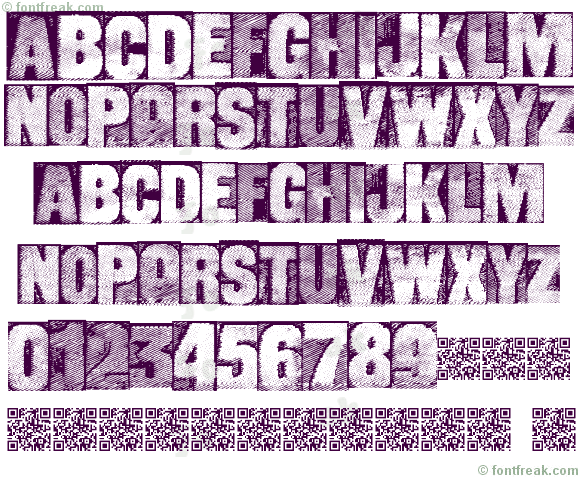
EscapeGreat
About EscapeGreat
EscapeGreat by Xerographer Fonts is a unique display font that captures attention with its bold and playful design. Released in 2013, this freeware typeface stands out with its distinctive texture and an energetic personality that resonates with a wide audience. Characterized by its thick stroke weight and a high level of contrast, EscapeGreat features irregular edges that create a hand-crafted appearance, adding a layer of authenticity to any design project. The spacing between letters is generous, ensuring clarity and legibility even at larger sizes, making it ideal for impactful headings and titles.
This versatile font is perfect for a variety of creative applications. It shines in wedding invitations, where its whimsical nature can set a warm and inviting tone. Additionally, EscapeGreat is an excellent choice for movie posters, lending a dramatic flair that captures the essence of the film. Restaurant menus can benefit from its eye-catching style, enticing customers with a visually appealing presentation. Content creators will find it useful for social media graphics, where a striking font can make posts stand out in crowded feeds. Graphic designers and small business owners alike will appreciate its ability to enhance branding and marketing materials.
What truly sets the EscapeGreat font apart is its ability to convey a sense of fun and creativity while maintaining a professional edge. It invites viewers to engage with the content, making it a compelling choice for projects that require a touch of personality. With EscapeGreat font free download available, designers can easily incorporate this dynamic typeface into their toolkit, ensuring their projects are both memorable and visually captivating.